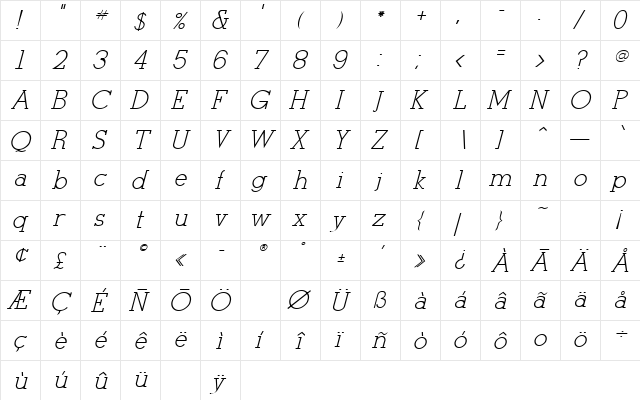
Midnight Rider 2 Italic
Design Context for Midnight Rider 2 Typeface
Midnight Rider 2 is a composed and adaptable typeface that performs quietly and consistently across a wide range of design contexts. Its italic angle brings a sense of urgency and motion to the letterforms.
Pro Tip: Try Midnight Rider 2 for annotation and caption copy alongside an upright companion — the contrast in angle creates a dynamic but ordered typographic system.